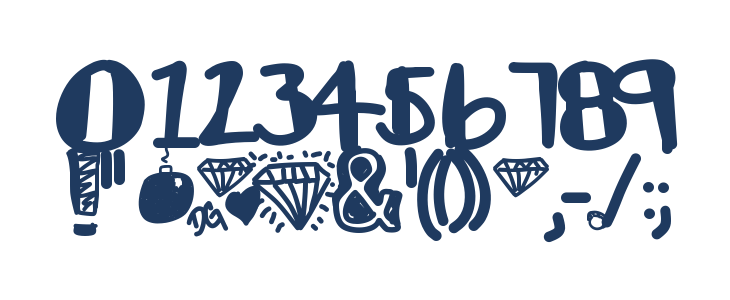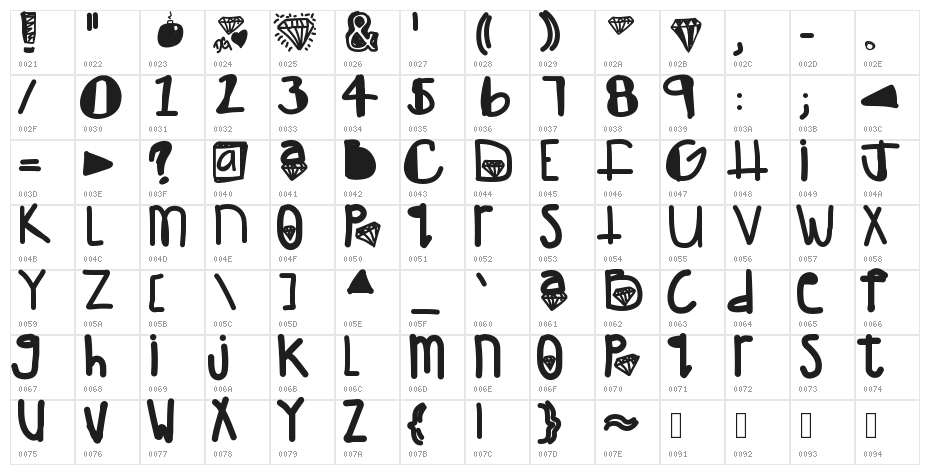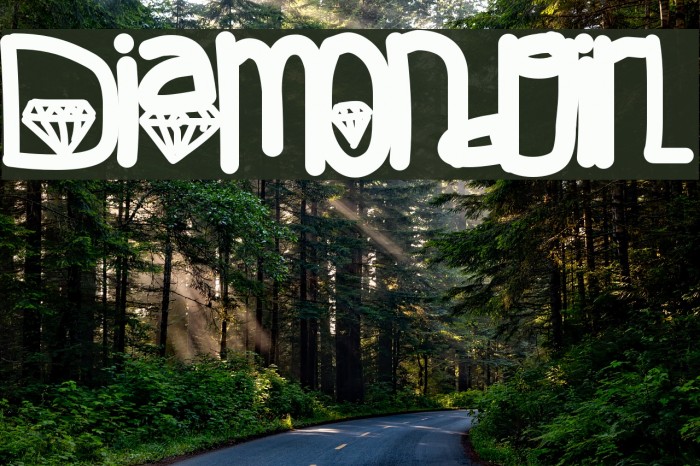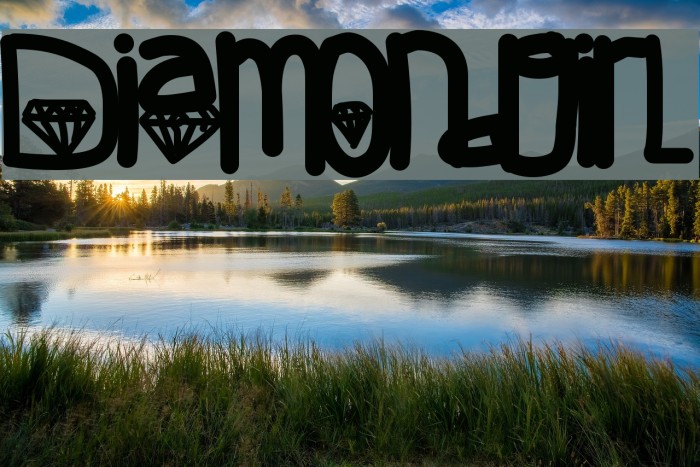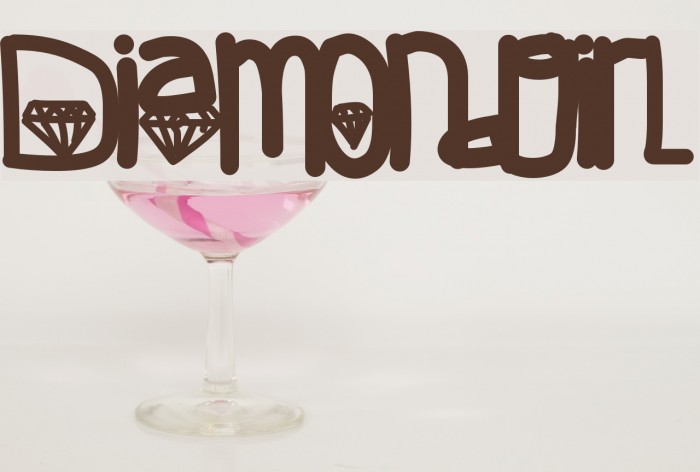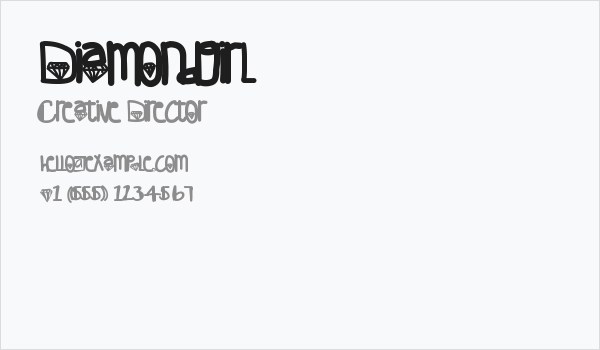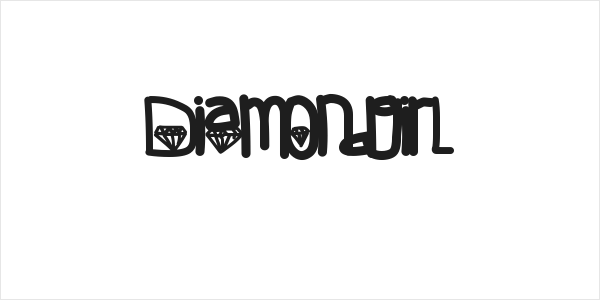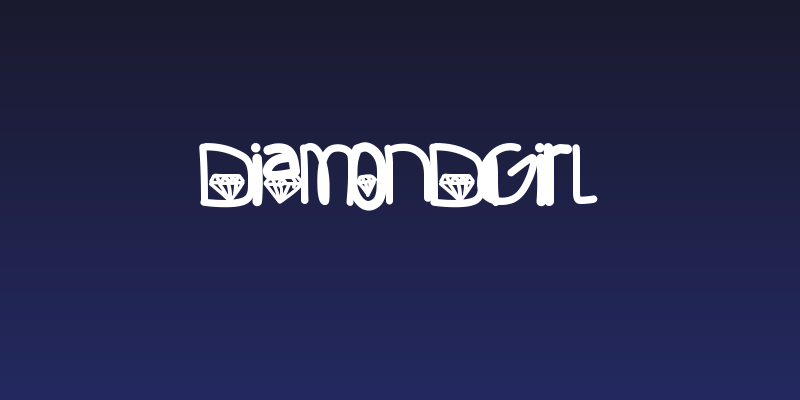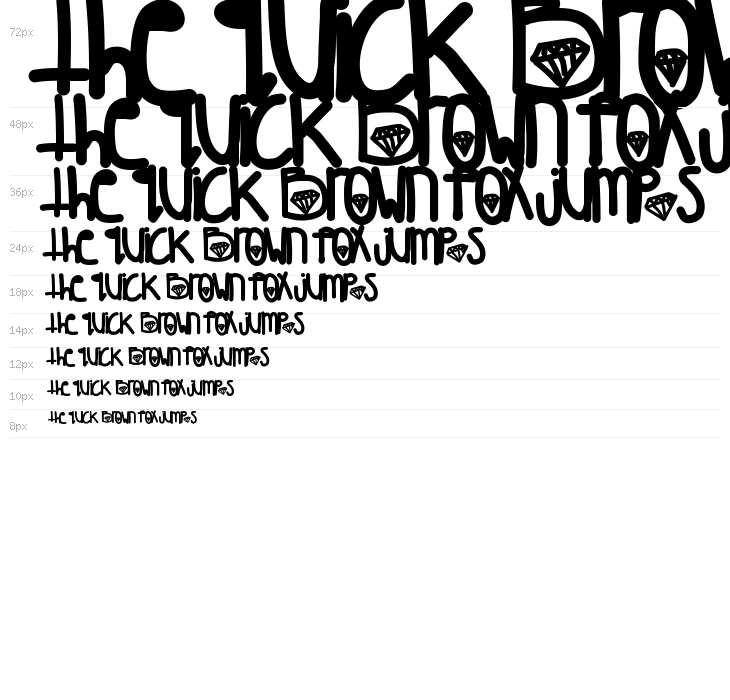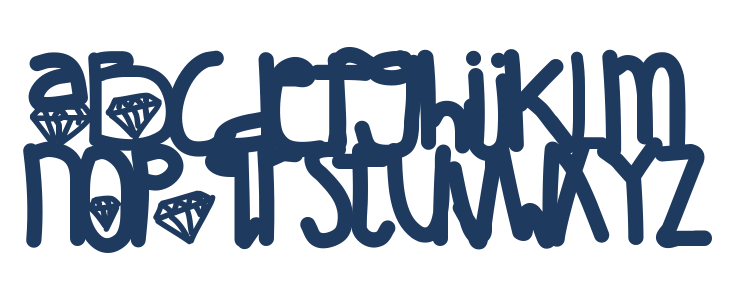
Diamondgirl Font
Diamondgirl Description
This playful and bold font features a unique, hand-drawn style with thick strokes and a whimsical touch. Each character is distinct, with a slightly irregular shape that adds to its charm. The inclusion of diamond motifs within some letters enhances its decorative appeal, making it stand out. The font has a casual, artistic vibe, perfect for projects that require a fun and engaging look. Its boldness ensures high visibility, while the quirky design elements make it memorable and eye-catching.
| Proposed Projects | Ideal for children's book covers, playful branding, greeting cards, and creative posters. |